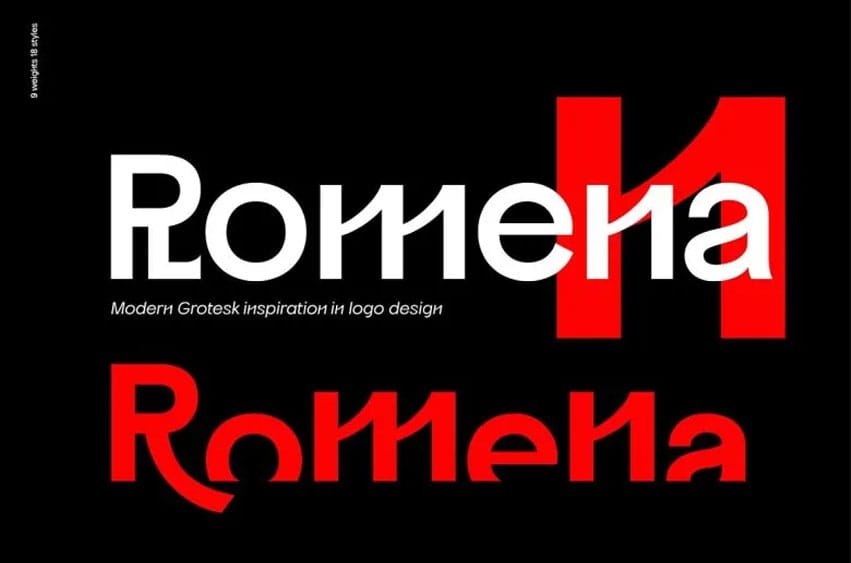
Romena Grotesk Font Sans Serif Font Family. It is a contemporary-styled grotesque family with the power to create powerful typography. Hairline Styles feature thinner lines than typical Thin Styles and have lower heights than Black Styles for optimal typographic designs.
By using each font within this family to compose typographic pieces you will experience an amazing sense of harmony and balance when using all fonts in it in your typographic works.
Alternative logo and product branding designs can make their mark with innovative cropped glyphs that provide meaningful symbols for logo design.